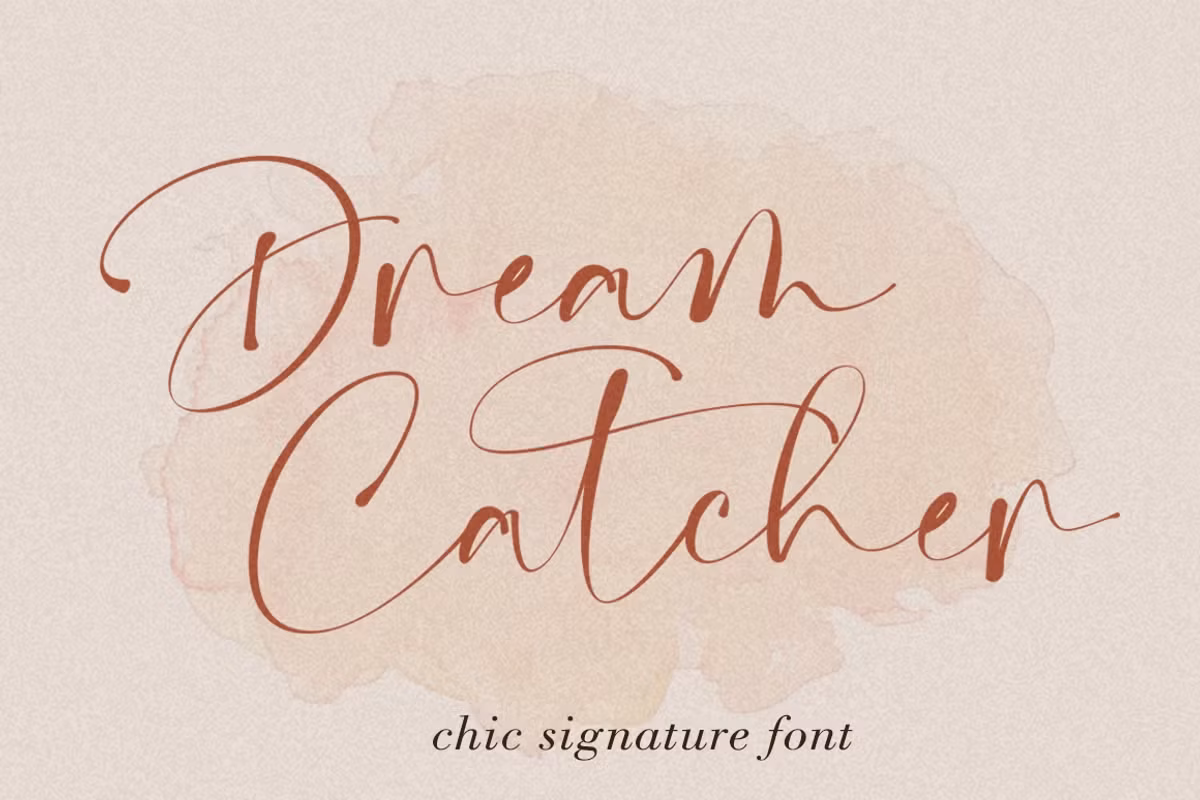
The Dream Catcher Font Free Download is a whimsical and artistic script typeface that draws inspiration from dreamcatchers, adding an ethereal and free-spirited feel to your designs. Perfect for branding, quotes, social media posts, greeting cards, and any creative project that needs a personal, dreamy touch, this font brings elegance and flow to your typography.
With its smooth curves and artistic flair, Dream Catcher adds a graceful and organic look to your projects. It includes uppercase and lowercase letters, numbers, punctuation, and multilingual support, making it versatile for a wide range of creative applications.